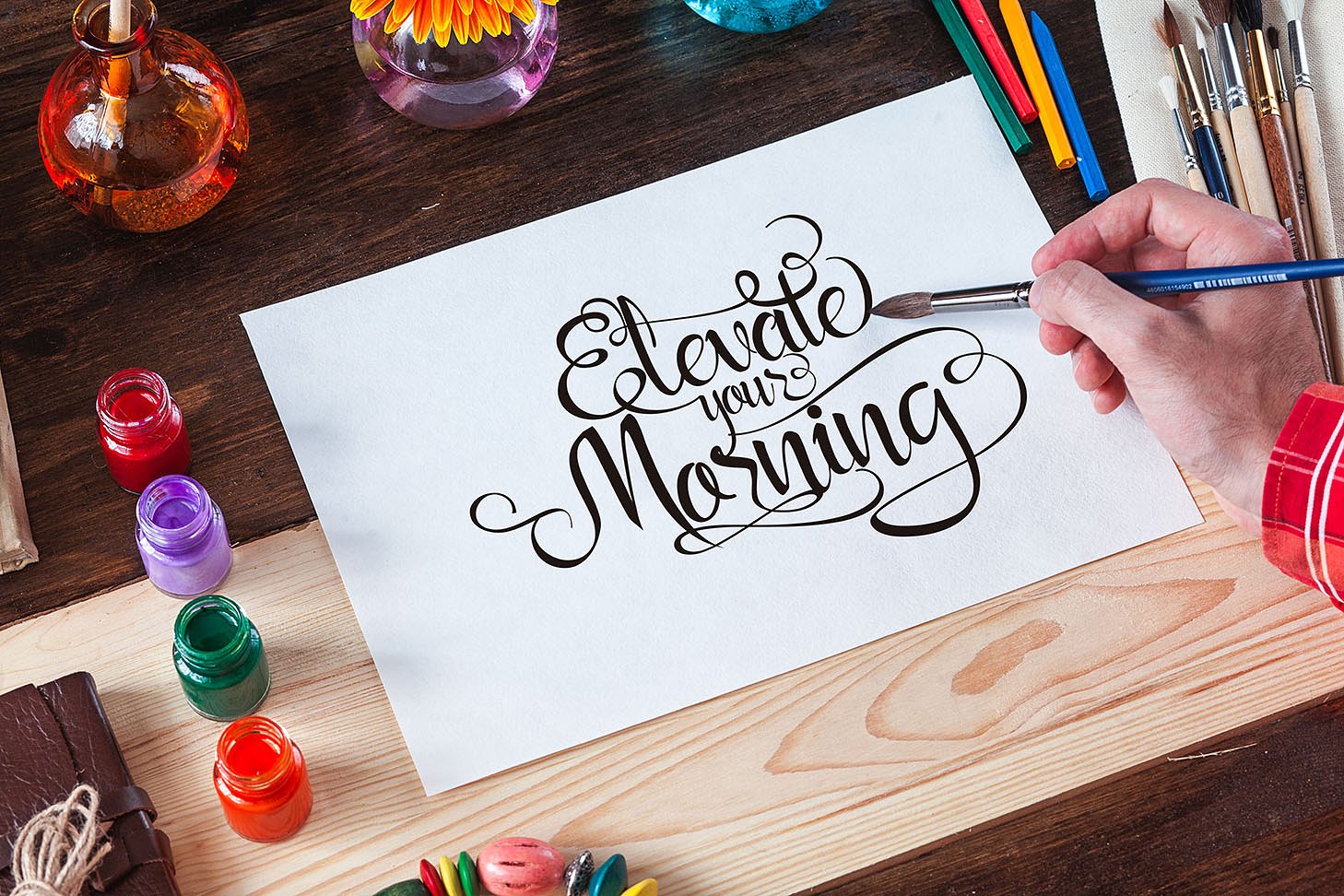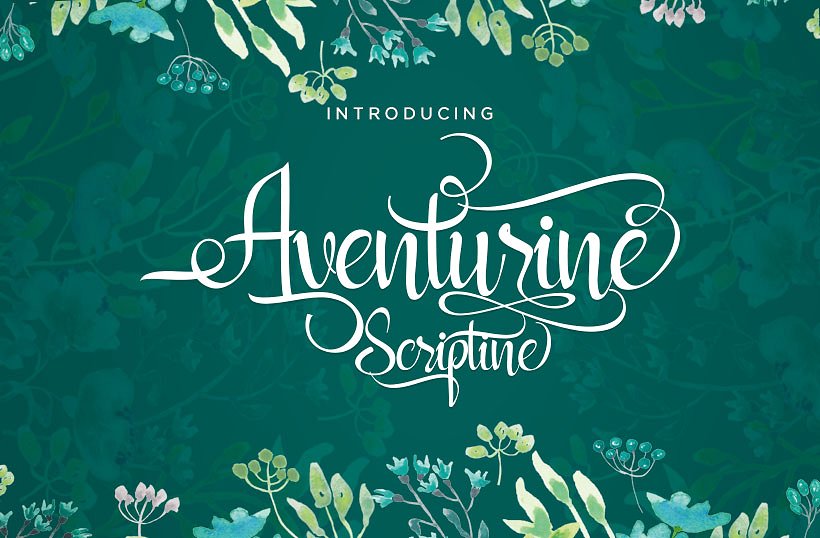
Aventurine Script Font
Aventurine Scriptine – a new fresh & modern script with a handmade calligraphy style, decorative characters and a dancing baseline! Beautiful on invitations, branding, business cards, quotes, posters, and more! Aventurine Scriptine Font comes with 394 glyphs. The alternative characters were divided into several Open Type features such as Swash, Stylistic Sets, Stylistic Alternates and Ligature. This font is PUA Encoded, so that all the alternate characters can easily be accessed by anybody with Font book on Mac or Character Map on Windows.